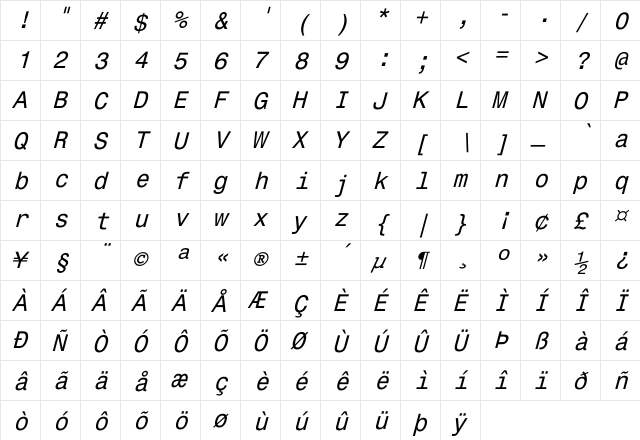
Brunhilde Italic Regular
Design Context for Brunhilde Italic Typeface
Brunhilde Italic offers clean, dependable letterforms without strong stylistic allegiance, making it a practical choice for designers who need flexibility. Its italic angle brings a sense of urgency and motion to the letterforms.
Pro Tip: Use Brunhilde Italic for emphasis, pull quotes, and subheadings where its slanted energy can add rhythm to the layout.